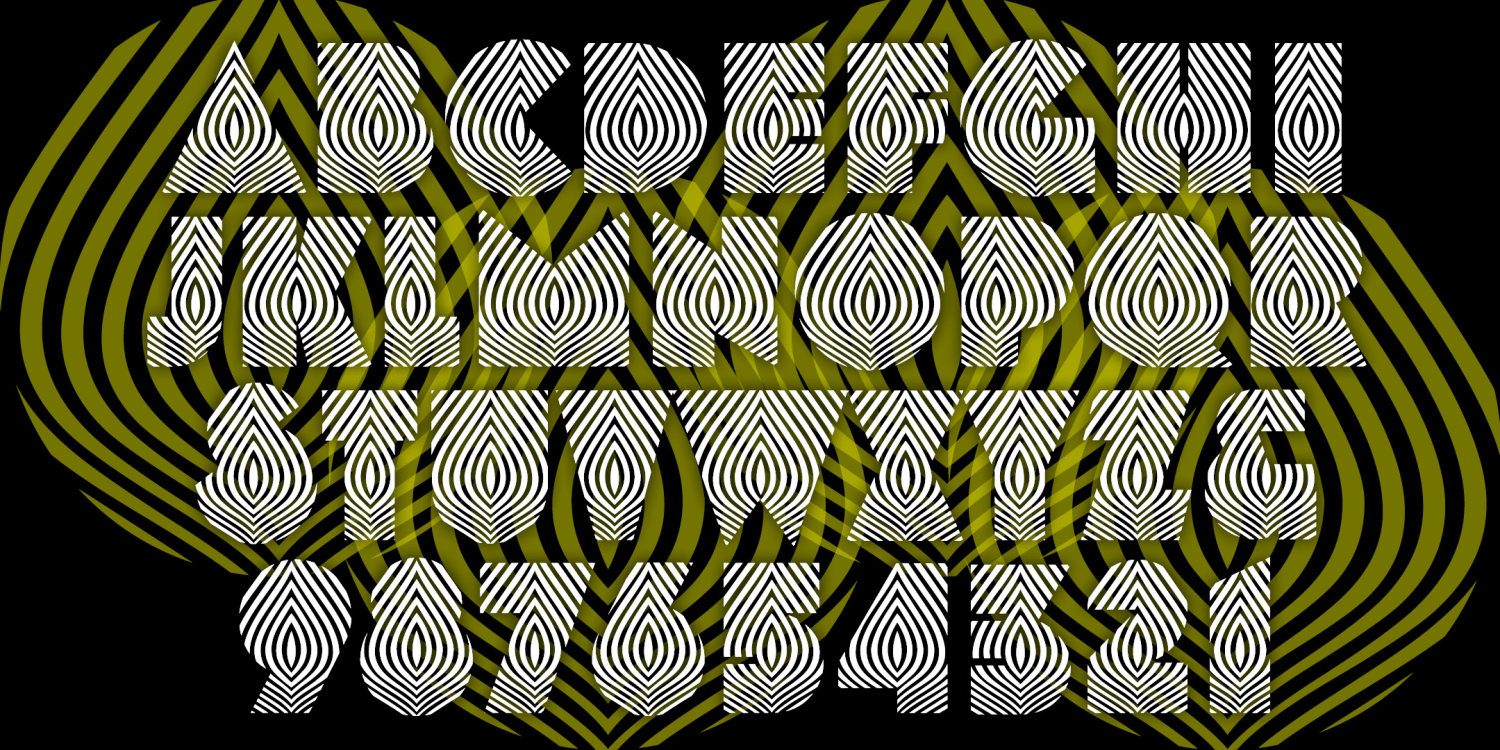
Onion
ONION is a font that looks like Op Art: all undulating parallel lines that stimulate the eye. It was inspired an unidentified style included in a book of Art Deco designs "selected from rare periodicals (mostly European), type catalogs and printed ephemera of the 20s and 30s." Completely redrawn, the onion-like cross-section is simplified, the shapes regularized, and the character set expanded. Lends itself to overlapping and layering.